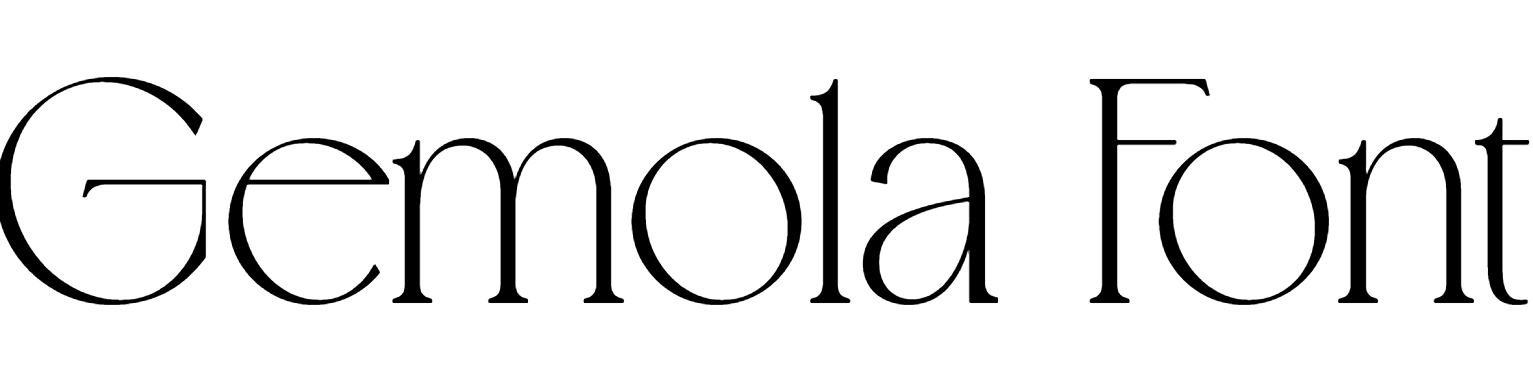
Gemola
Gemola is a serif font designed by Burhan Afif and published by HansCo Studio (2023). Small strokes at the ends of its letters (the serifs) give it a classic, trustworthy look. It's a free download, and you can try it with your own text in the preview above first.
- Designer: Burhan Afif
- Publisher: HansCo Studio
- OpenType features: Ligatures and 2 stylistic sets
- Extra characters: 15 copy-and-paste alternates (Private Use Area)
You get every letter from A to Z in both cases and all the numbers from 0 to 9, which means Gemola can handle full sentences, dates and prices. Everyday marks like &, !, ? and @ are there too. Thanks to its accented letters, it also works for Spanish, French, German, Portuguese and Italian, not just English.
Designers usually reach for fonts like Gemola when they're making book covers, magazine headlines and classic branding. Serif fonts shine in headlines and printed text. For long paragraphs on phones, check that it still reads well at small sizes.
Yes. Gemola includes the accented letters needed for Spanish, French, German, Portuguese and Italian, so it works for more than just English.